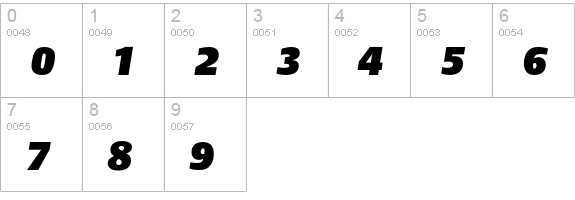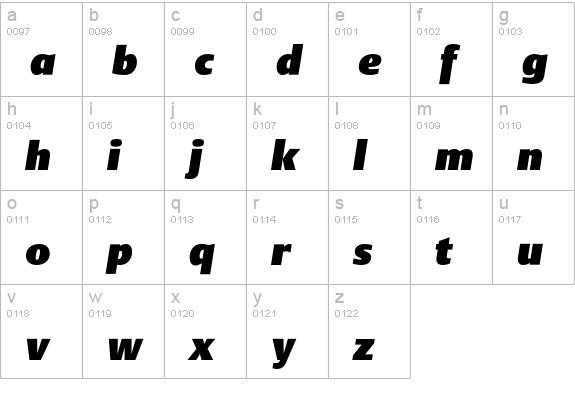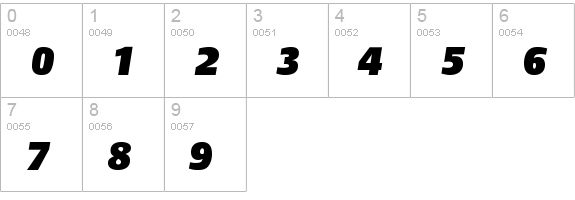
DTLArgoT-UltraHeavyItalic Font Details
The DTLArgoT-UltraHeavyItalic font is a bold and striking typeface that exudes power and elegance. Its ultra-heavy weight and italic style make a strong statement in any design project, commanding attention and adding a touch of sophistication. This font is perfect for headlines, branding, and any project that requires a bold and impactful look. The slanted italic design adds a dynamic and modern twist to the classic heavy weight, making it a versatile choice for a variety of applications. Best of all, the DTLArgoT-UltraHeavyItalic font is available for free download at FontsMarket.com, allowing designers to access this powerful typeface without any cost. Don't miss out on this opportunity to enhance your designs with the bold and stylish DTLArgoT-UltraHeavyItalic font today!